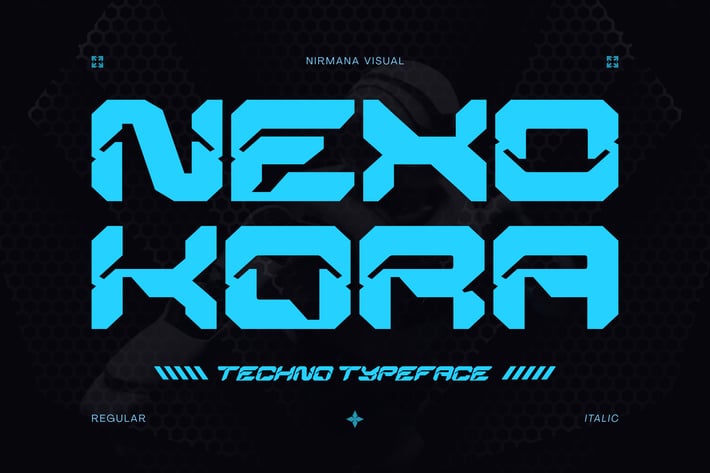
Nexokora Techno - Logo Font
Nexokora Techno offers beautiful typographic harmony for a diversity of design projects, including logos & branding, social media posts, advertisements & product designs.